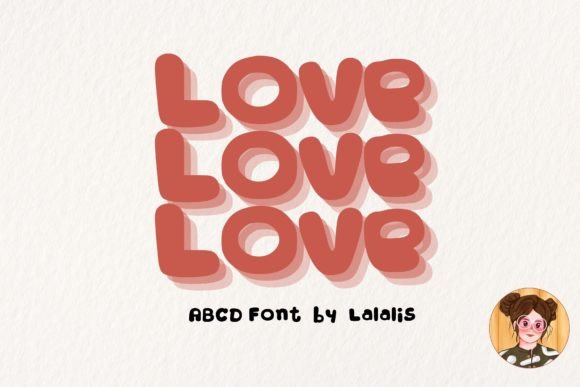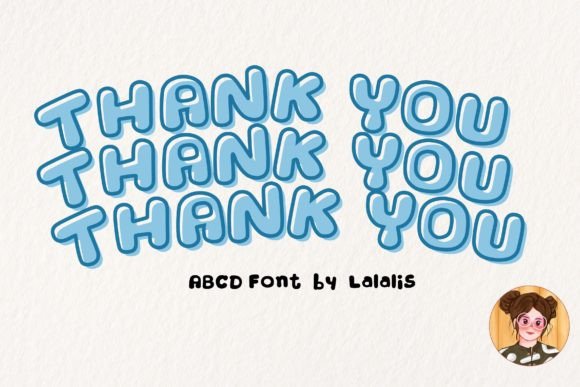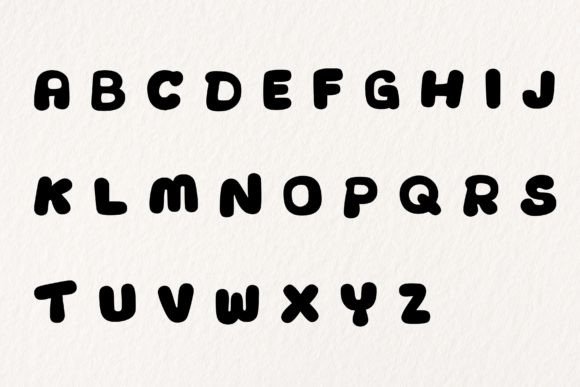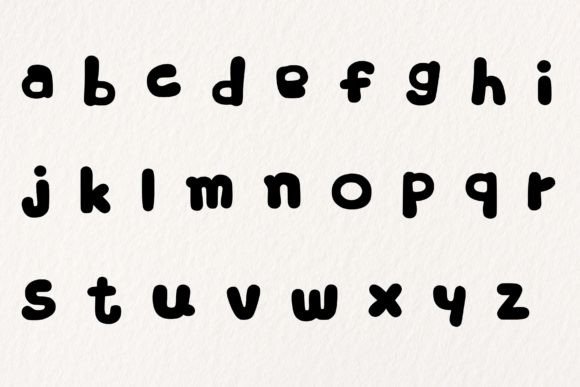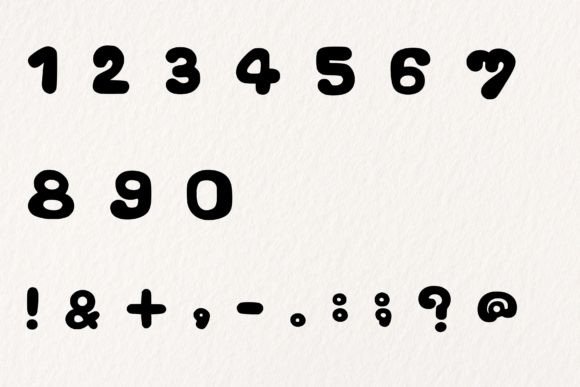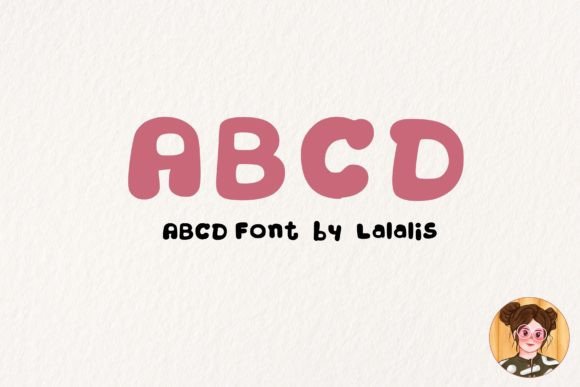
The Ultimate Guide to Abcd Font: Elevate Your Designs with a Playful Touch
I’ll never forget the time I was working on a project for a children’s brand, and I was struggling to find the perfect font to match their playful and fun vibe. That’s when I stumbled upon the Abcd font, and it instantly became my go-to. In this article, I’ll share my love for this font, its features, and how to make the most of it in your designs.
Abcd Font: A Personal Review
The Abcd font is a playful and casual handwritten font that’s perfect for a wide range of projects. Here’s what I love about it:
• ✨ Playful and fun: The Abcd font has a carefree and whimsical feel to it, making it perfect for designs that require a touch of personality.
• ✅ Highly versatile: Whether you’re working on a children’s book, a craft project, or a social media graphic, this font will elevate your design and make it stand out.
• 💬 Easy to read: Despite its playful nature, the Abcd font is surprisingly easy to read, making it perfect for body text and captions.
While the Abcd font is amazing, it’s not without its quirks:
• 🤔 Limited formal use: Due to its playful nature, the Abcd font may not be the best choice for formal or professional projects.
• ⚠️ Some letter variations: Some letters may have limited variations, which can affect the overall flow of the text.
The Story Behind Abcd Font
The Abcd font was designed by a team of creatives who wanted to create a playful and fun font that’s perfect for a wide range of projects. Inspired by handwritten notes and letters, the Abcd font is a beautiful representation of casual and creative typography.
Font Name Abcd Font
Author Lalalis
What is the Abcd font best used for? The Abcd font is best used for creative and playful projects, such as children’s books, craft projects, and social media graphics.
Is the Abcd font easy to read? Yes, the Abcd font is surprisingly easy to read, making it perfect for body text and captions.